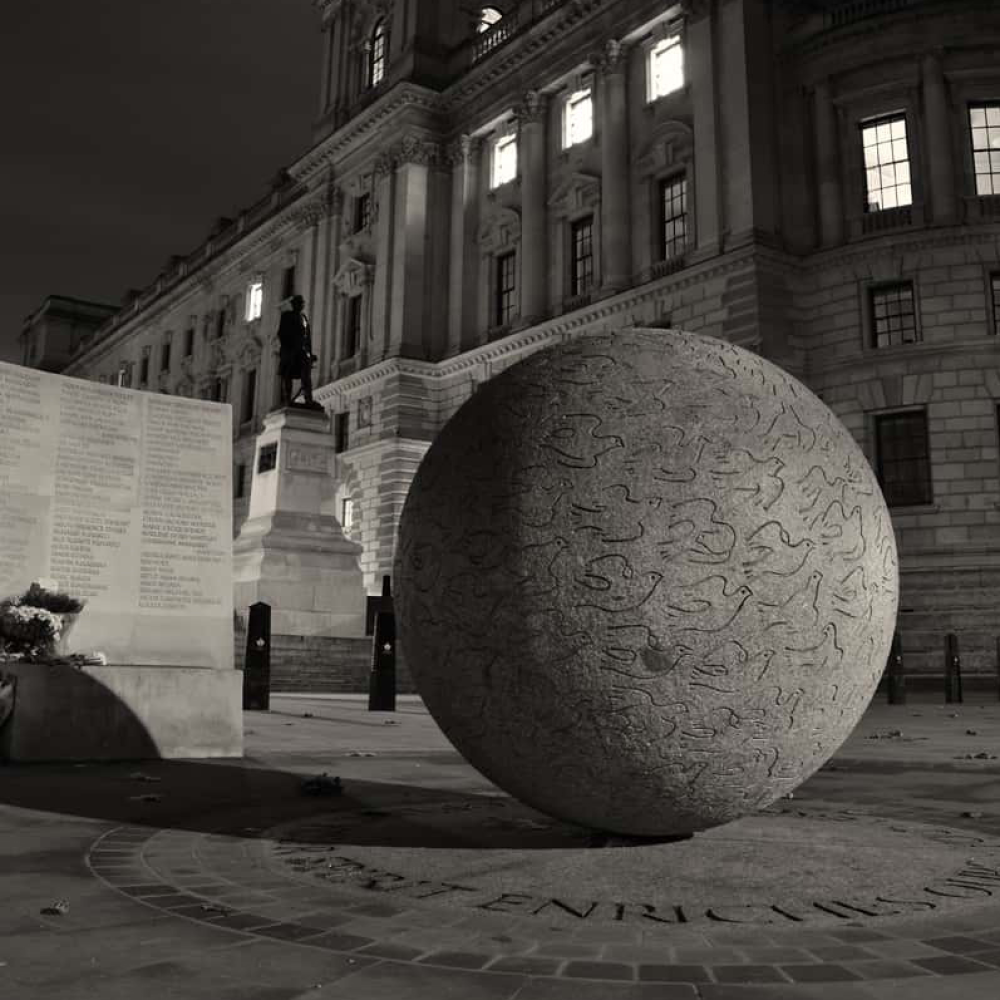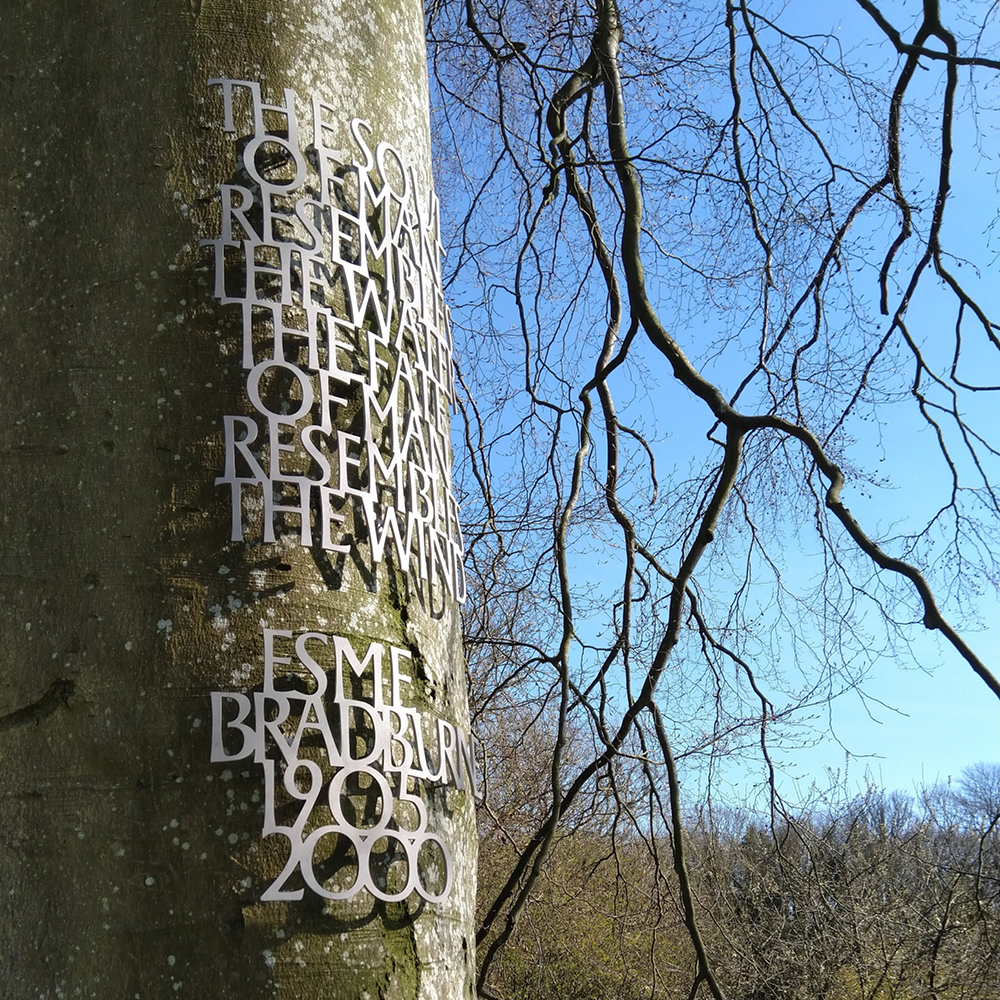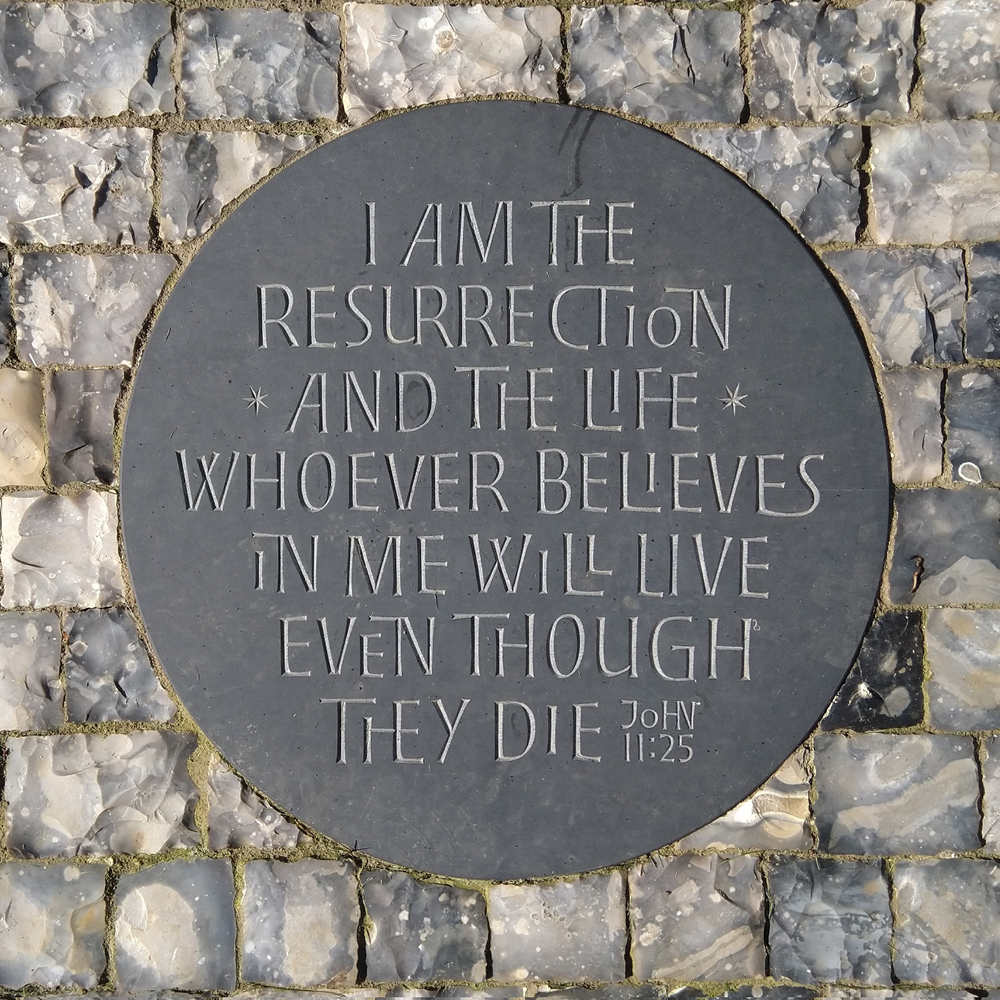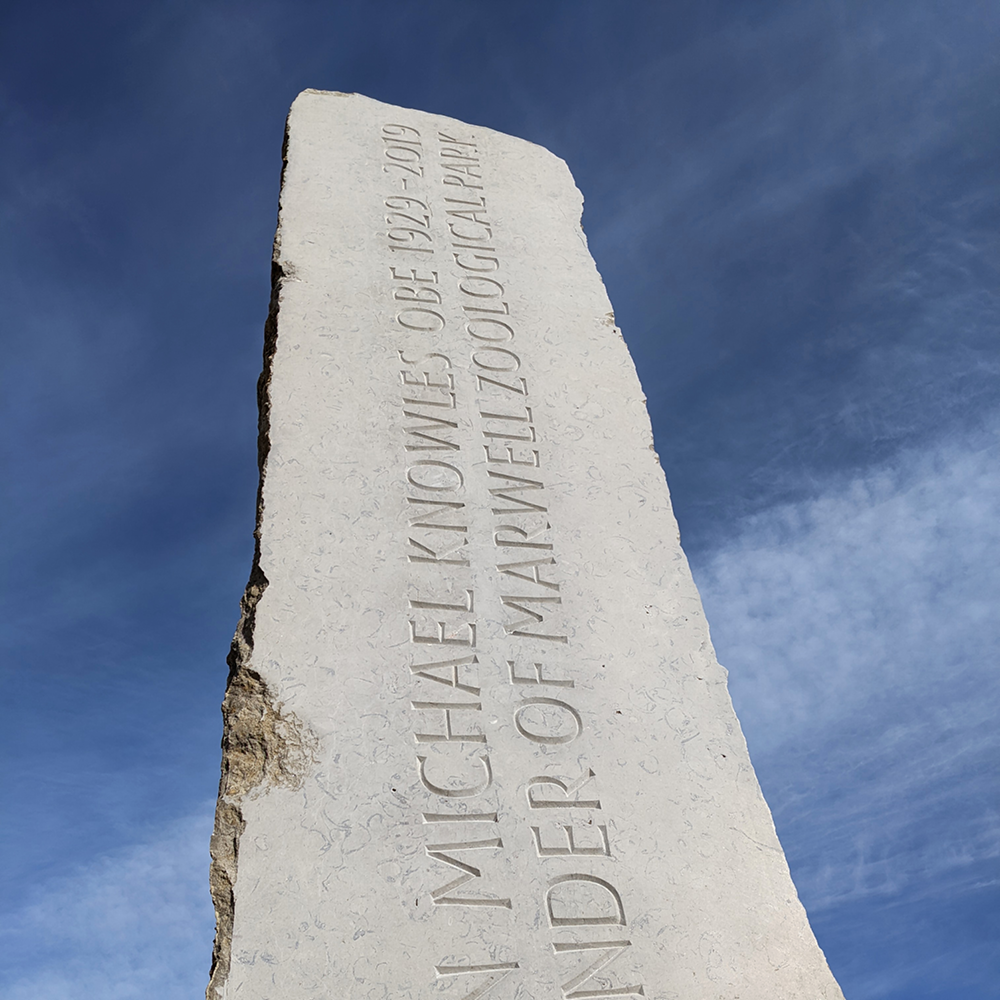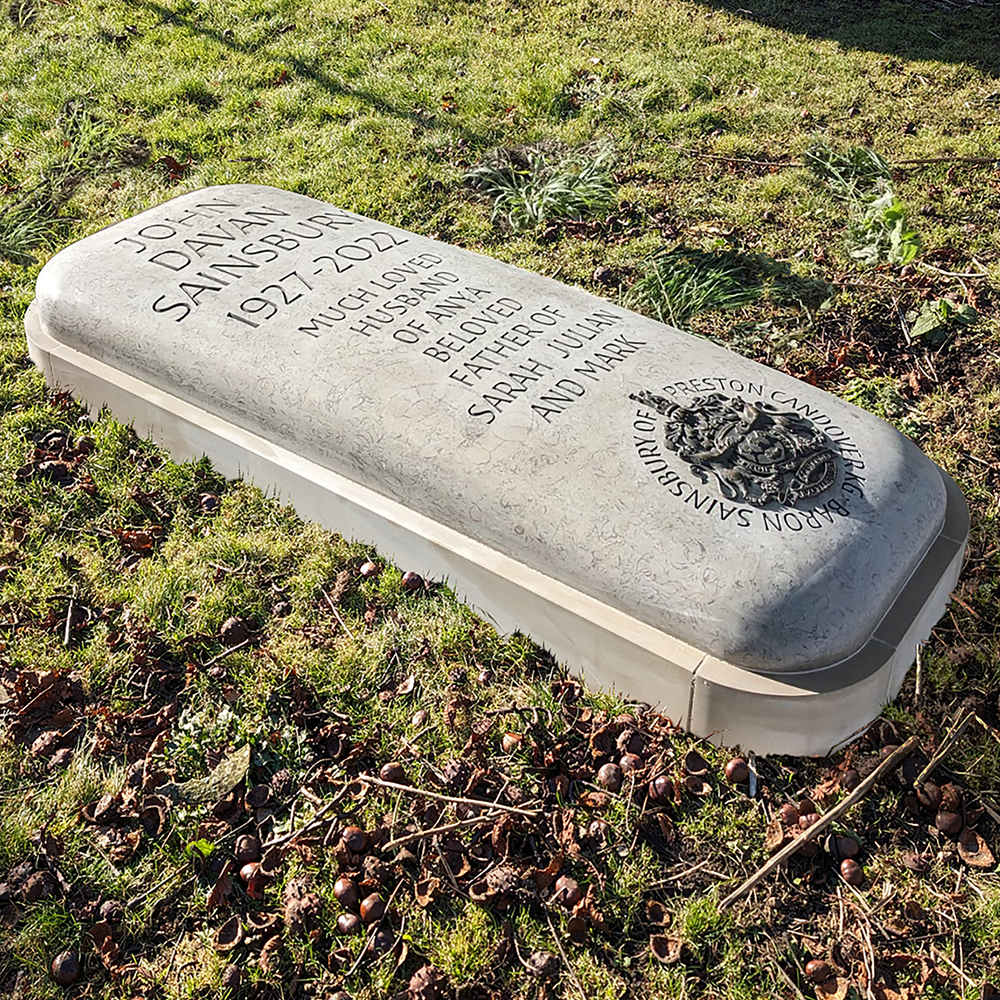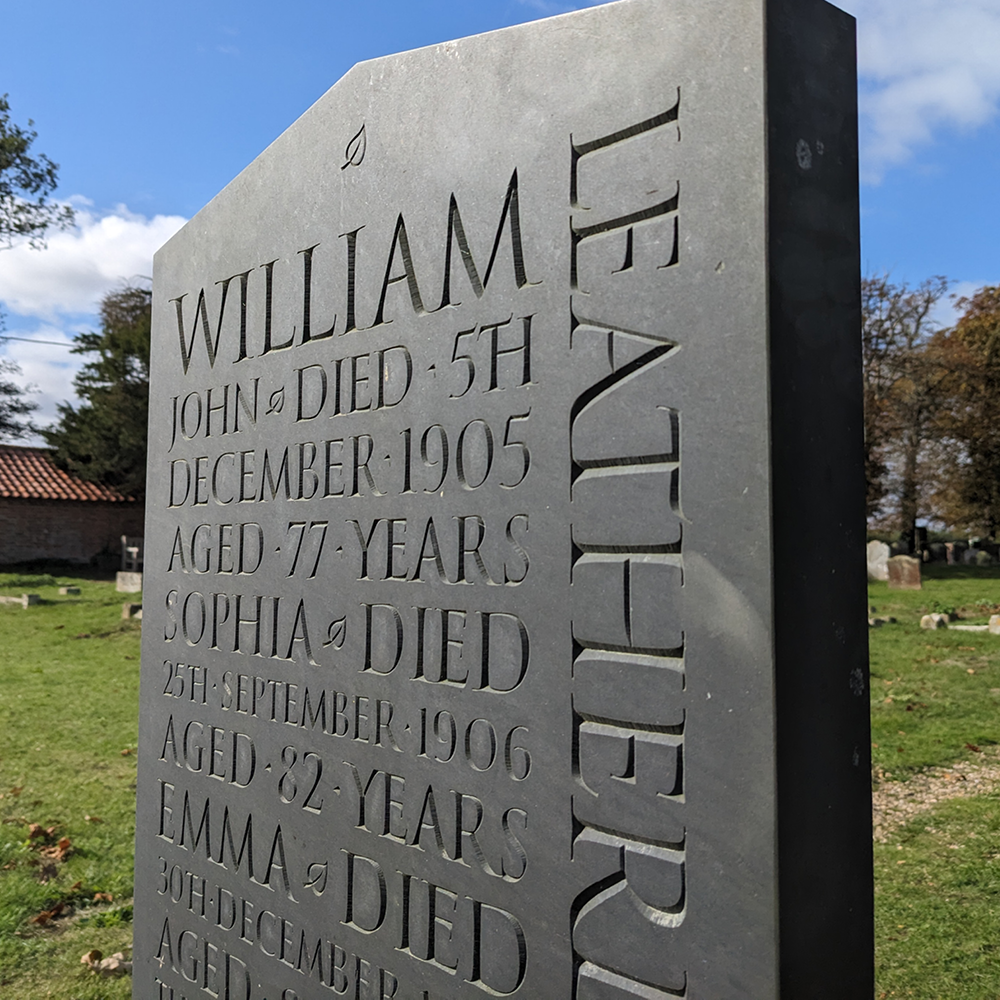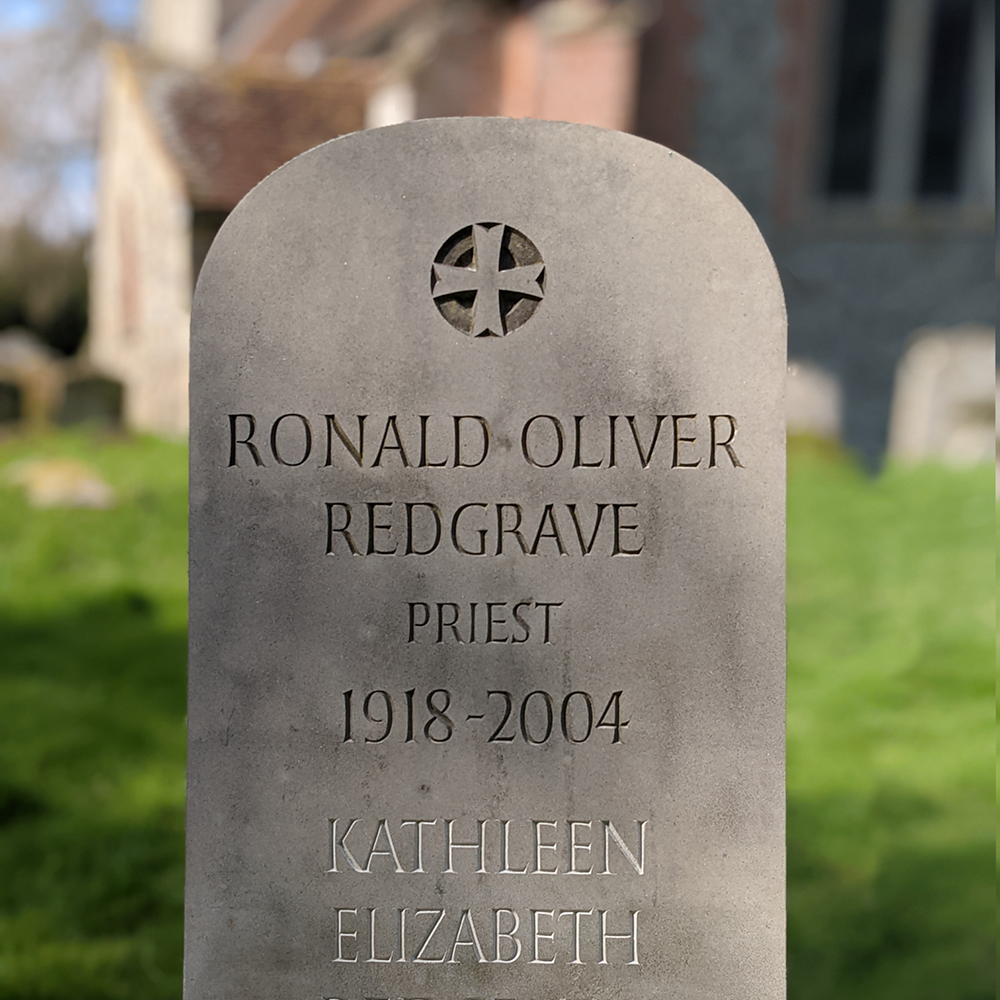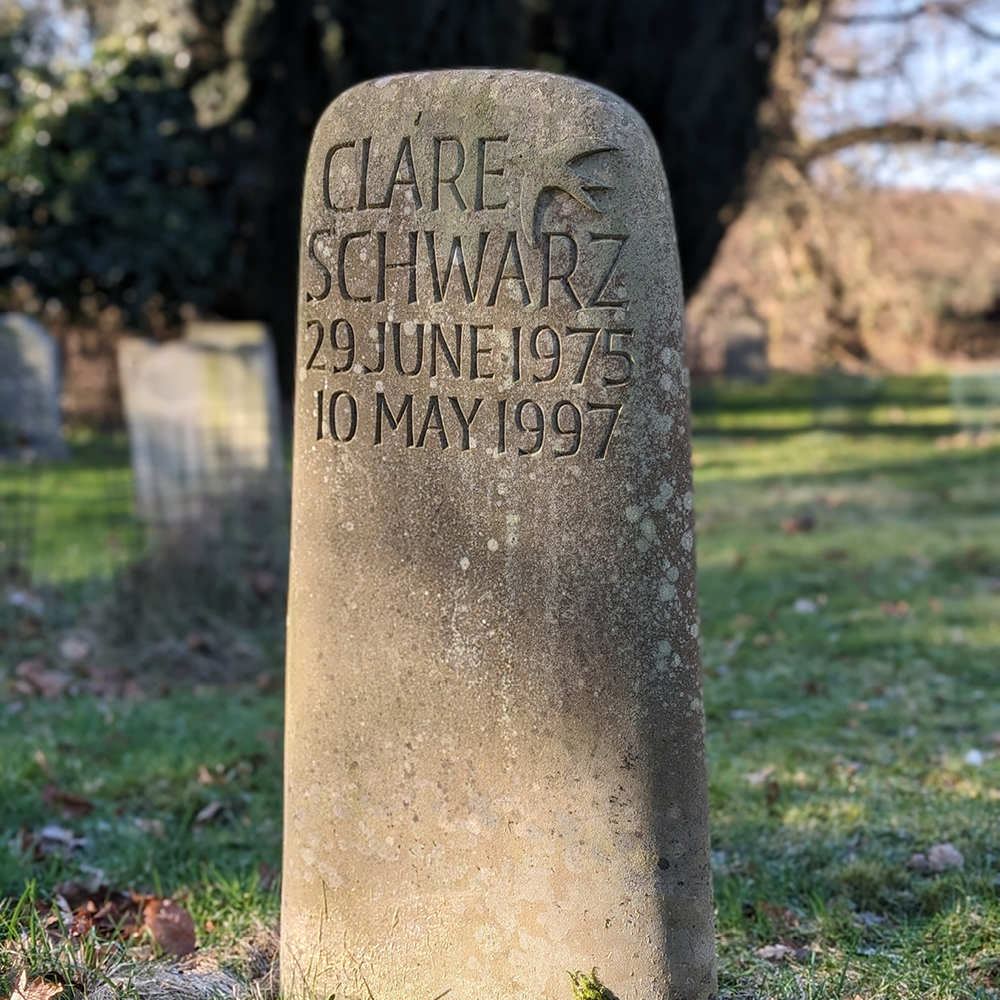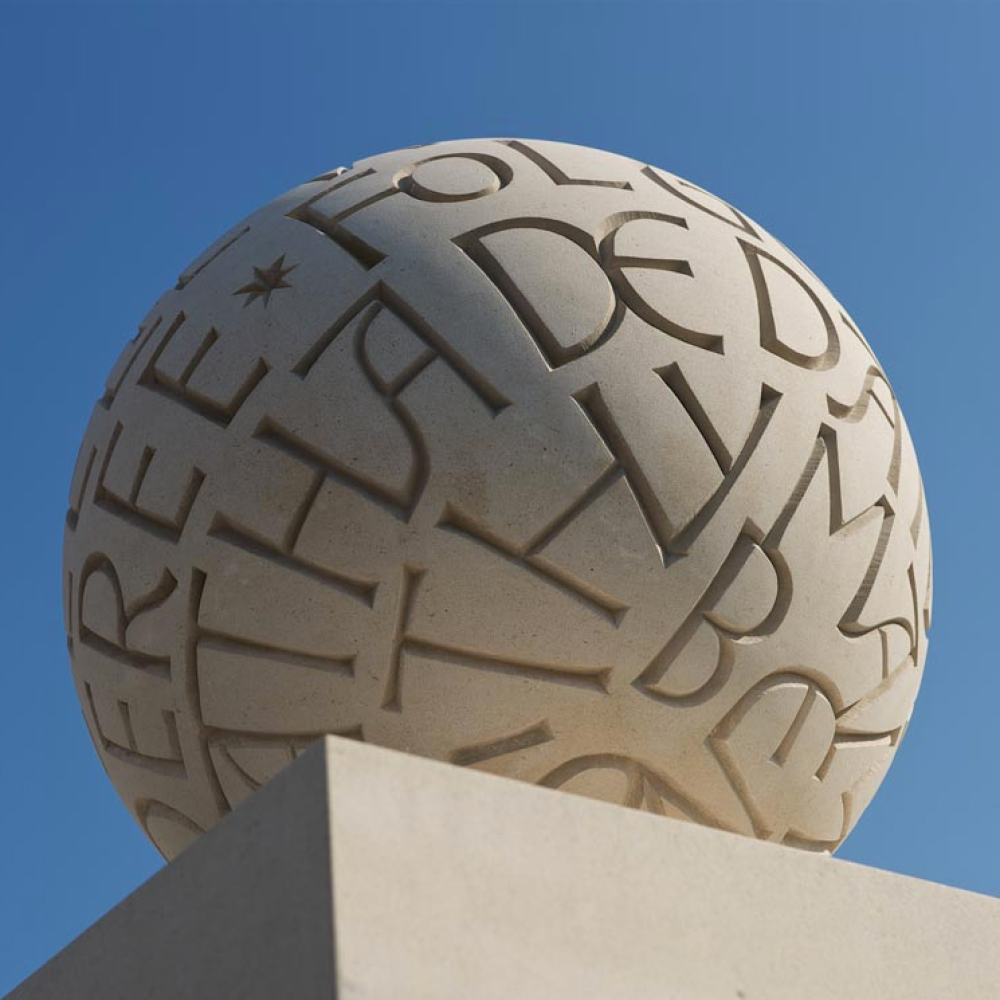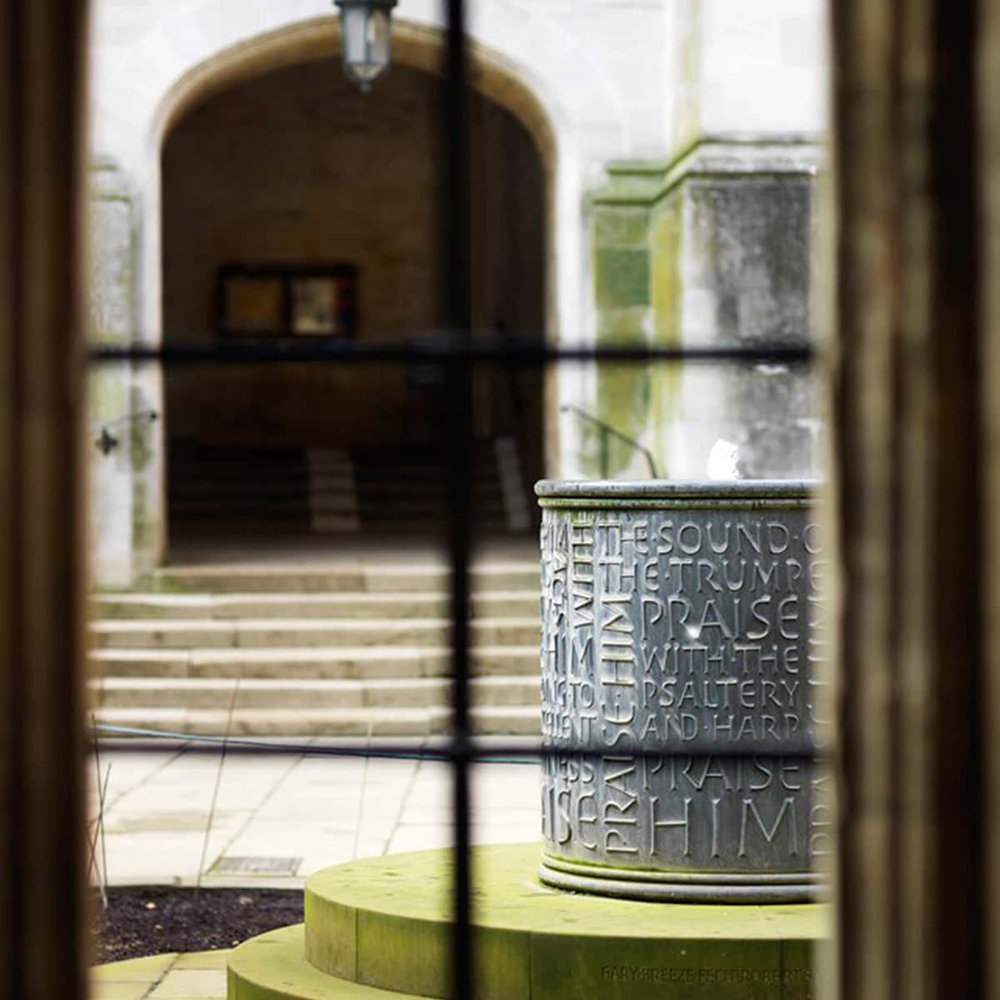
Gary Breeze
Gary set up his workshop in 1993. Although primarily a letter carver in stone and wood, his work is broad ranging, from coins as consultant for the Royal Mint, to RHS gold medal winning landscape designs.
His work on the Bali Bomb Memorial in London, and the Christ Church cloister fountain in Oxford, both included the re-landscaping of architecturally sensitive sites, and his numerous major commissions throughout the UK have helped to raise the profile of text and lettering as a public art-form for over 30 years. Memorials are an important part of the workshop’s output. Gary offers simple and elegant solutions, using materials and form to create contemporary memorials which are warm in character and mindful of their setting.